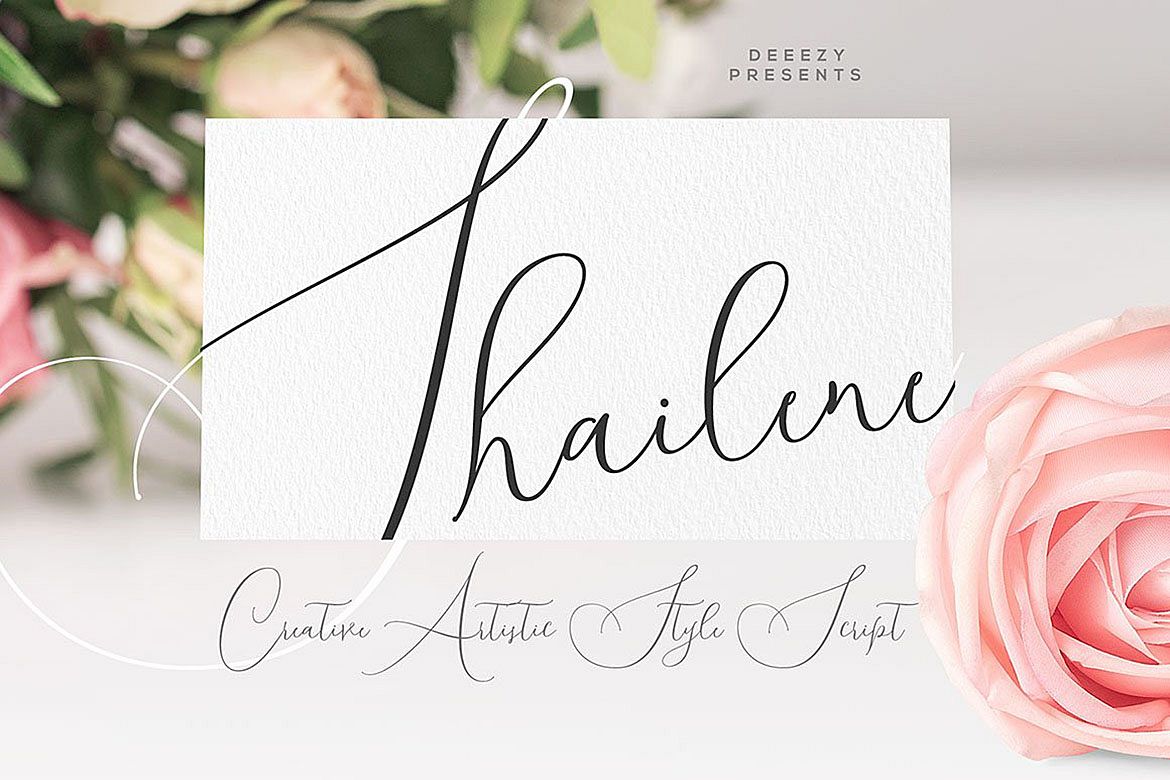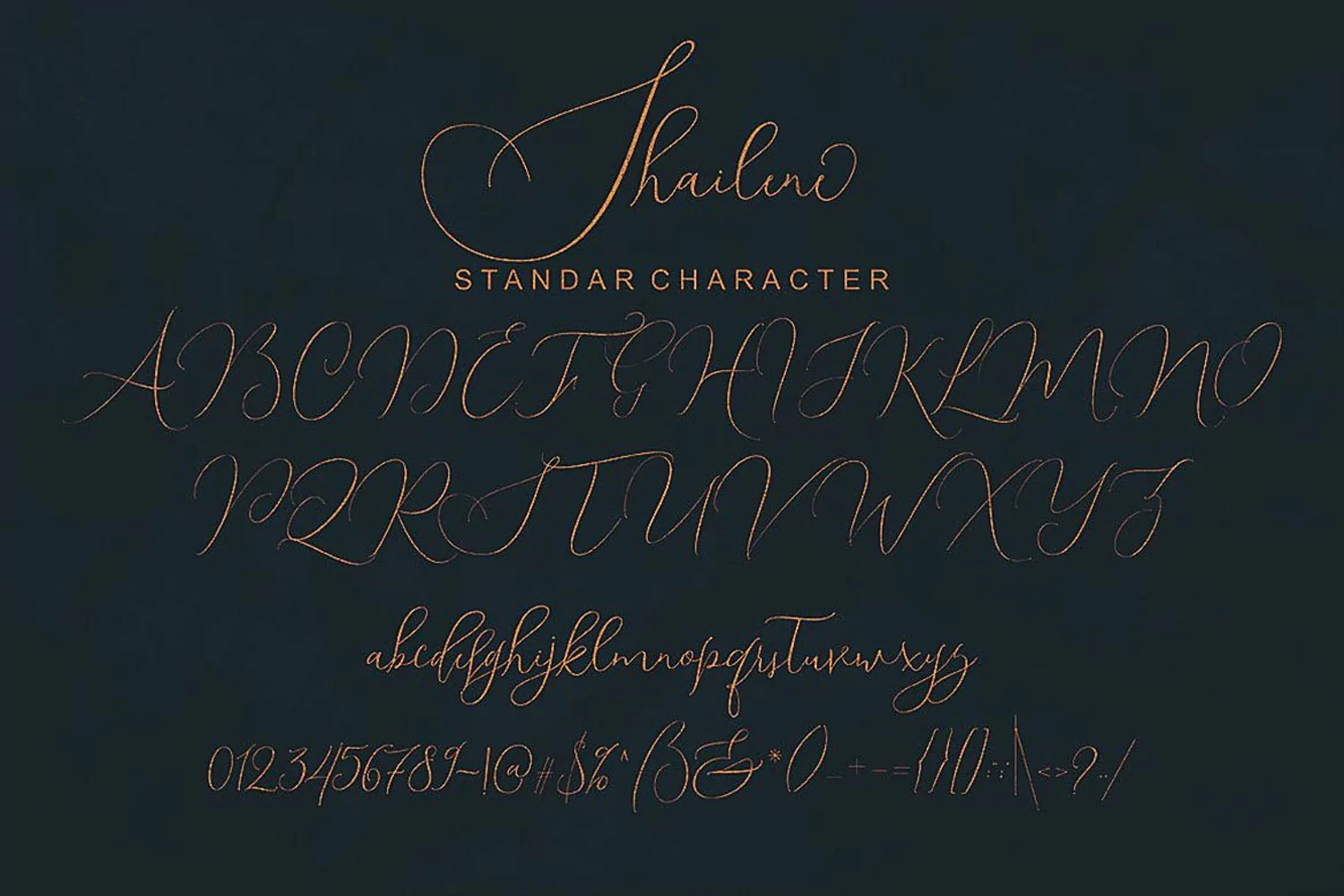
Starship Typeface
Thin line and handwritten or creative style script font for your new projects. With multi language support and lot of stylistic alternates & swashes. Enjoy ;)